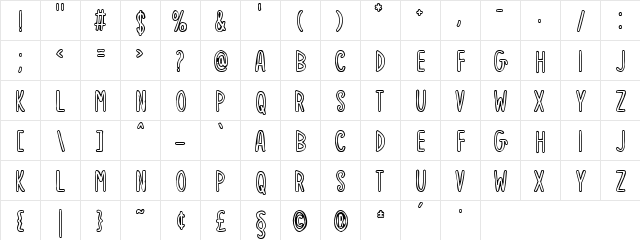
Notice Things Regular
Design Context for Notice Things Typeface
Notice Things takes a measured approach to typography — its balanced proportions and neutral character make it a reliable workhorse for both digital and print work. Its slender proportions lend an understated elegance to any composition.